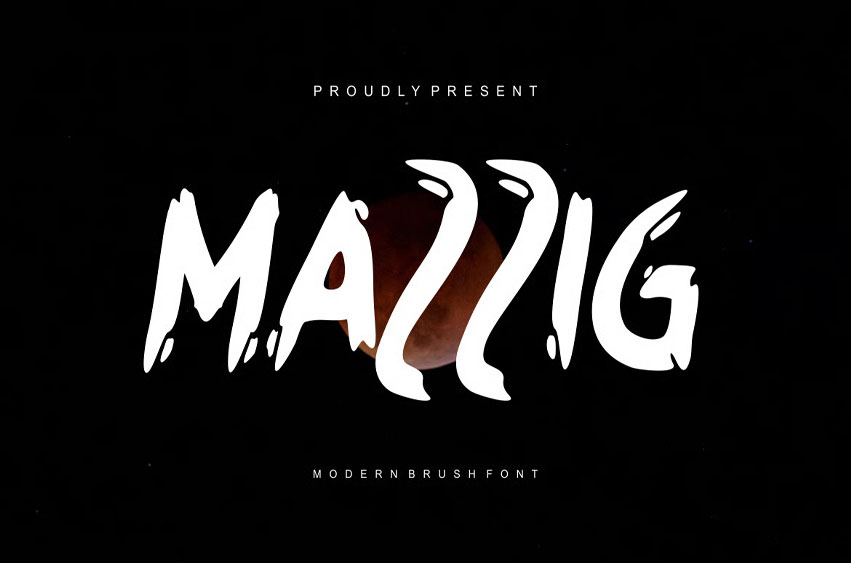
Mazzig Font Modern Brush Font is a bold and authentic display font.
The font is suitable for any branding project like logo, t-shirt printing, esport, and many more. outstanding in a wide range of contexts.